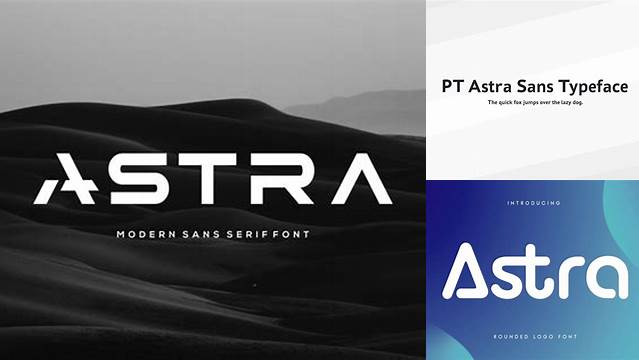
Astra Font: Download Modern Sans Serif For Free
The Allure of Astra Modern Sans Serif Fonts
Hey guys, let's dive into the awesome world of typography, specifically focusing on the Astra modern sans serif font. You know, those clean, geometric fonts that just scream modern and sophisticated? Well, Astra is definitely one of those. It’s a fantastic choice for designers, bloggers, and anyone looking to give their projects a sleek, professional edge. When you're on the hunt for a font that’s both stylish and highly legible, a modern sans serif like Astra really shines. It’s versatile enough to be used across a wide range of applications, from website headers and branding to print materials and even app interfaces. The simplicity of sans serif fonts means they often perform exceptionally well at various sizes, ensuring your message comes across loud and clear, whether it's on a tiny mobile screen or a large billboard. Astra, in particular, has this great balance of contemporary design and user-friendliness. It’s not overly stylized to the point of becoming difficult to read, which is a common pitfall for some trendier fonts. Instead, it offers a refined yet approachable aesthetic that can elevate almost any design. So, if you're looking for that perfect typeface to make your next project pop, understanding why modern sans serifs like Astra are so popular is the first step. They represent a departure from the more traditional serif fonts, offering a cleaner, often more minimalist vibe that resonates with contemporary design sensibilities. This font family is designed to be incredibly flexible, allowing for a multitude of uses without compromising its integrity or readability. We'll explore the various ways you can leverage its unique characteristics to enhance your own creative endeavors.
Why Choose Astra for Your Next Project?
So, why should you seriously consider the Astra modern sans serif font for your next big design gig? It really boils down to a few key things that make it a standout option. Firstly, its modern aesthetic is spot-on. In today's design landscape, clean lines and geometric forms are king, and Astra delivers this in spades. It gives your projects that fresh, up-to-date feel that’s crucial for grabbing attention. Secondly, readability is paramount, right? Nobody wants their audience squinting to read tiny text. Astra’s design prioritizes clarity, making it super easy to read across different platforms and devices, whether it's a website body text or a snappy social media graphic. This legibility factor is HUGE for user experience. Thirdly, the versatility of this font is insane. Need a bold headline? Astra’s got it. Need subtle body text? Astra can do that too. It often comes in a range of weights, from light to bold, giving you the flexibility to create visual hierarchy and add dynamic contrast to your designs. Imagine crafting a website where the headlines are in a strong, bold Astra, and the supporting text is in a lighter weight – it creates a beautiful flow and guides the reader's eye effortlessly. Beyond digital, it translates brilliantly to print, looking sharp on business cards, flyers, and posters. This adaptability means you’re not juggling multiple font families for different needs; Astra can often be your go-to solution. Plus, let's not forget the practical side: free download. Getting access to a high-quality, versatile font like Astra without any cost is a massive win for your budget and your workflow. It democratizes good design, allowing everyone from students to small businesses to access professional-grade typography. This accessibility is a game-changer, enabling more people to create polished and impactful visual communications. So, when you weigh up its modern style, excellent readability, incredible versatility, and the fact that you can download it for free, Astra truly emerges as a smart and practical choice for a wide array of design needs, guys.
Exploring the Typography of Astra: A Deep Dive
Let's get a bit nerdy and really dissect what makes the Astra modern sans serif font tick. When we talk about sans serif, we mean fonts without those little decorative feet, or serifs, at the ends of the strokes. This gives them a cleaner, more contemporary look. Astra exemplifies this perfectly. Its letterforms are typically geometric, often based on simple shapes like circles and squares, which contributes to its balanced and harmonious appearance. Look closely at the stroke contrast, or the variation between thick and thin lines within a letter. In many modern sans serifs, this contrast is minimal or non-existent, leading to a uniform stroke width that enhances legibility, especially at smaller sizes. Astra often follows this principle, maintaining a consistent weight throughout its characters for maximum clarity. The x-height – the height of lowercase letters like 'x' – is another critical factor. Astra generally features a generous x-height, which is great news for readability because it means the lower-case letters are proportionally larger and easier to distinguish. This is a common characteristic of highly functional sans serifs. Consider the apertures, the openings in letters like 'c', 'e', and 's'. Open apertures prevent letters from looking too closed off and indistinct, especially at low resolutions or small sizes. Astra tends to have well-defined, open apertures, further boosting its legibility. The kerning and tracking – the spacing between letters – are also meticulously handled in well-designed fonts like Astra. Proper kerning ensures that specific letter pairs don’t look awkward (like a 'VA' with too much space), and tracking affects the overall density of text. While these are technical aspects, their impact is felt in the overall visual appeal and ease of reading. The designers of Astra have clearly put thought into these details, resulting in a typeface that feels both intentional and polished. This attention to detail is what separates a good font from a great one, ensuring that it performs exceptionally well in various contexts. The clean, open shapes and consistent stroke weights make it a joy to work with, providing a solid foundation for any design that demands clarity and a modern touch. Guys, understanding these subtle typographic elements helps you appreciate why Astra is such a solid choice. It’s not just about looking good; it’s about functional, well-crafted design.
Designing with Astra: Best Practices for Impact
Now that you’ve got your hands on the Astra modern sans serif font, let's talk about how to use it like a total pro, guys. Maximizing its impact in your designs is all about smart application. First off, hierarchy is key. Use different weights of Astra – like a bold for headlines, a regular for subheadings, and a light or regular for body text – to guide the reader's eye. This creates a clear visual path and makes your content much easier to digest. Don't just slap text everywhere; think about how the different weights and sizes create emphasis and structure. Secondly, consider the context. Is Astra the right fit for a vintage-themed poster? Probably not. But for a tech startup's website, a modern minimalist brochure, or a clean app interface? Absolutely! Its modern vibe works best when paired with other contemporary design elements. Think clean layouts, ample white space, and perhaps a complementary accent color. This font excels in environments that value clarity and a sleek aesthetic. Thirdly, pairing Astra with other fonts can add depth. While Astra is versatile, sometimes you might want to introduce contrast. A common approach is to pair a sans serif like Astra with a serif font for body text to create a classic juxtaposition, or pair it with a more decorative display font for specific elements. However, ensure the pairing complements, rather than competes with, Astra's clean lines. A good rule of thumb is to keep the overall feel cohesive. Fourth, don't overdo it. Sometimes, the most powerful design uses Astra sparingly but effectively. A strong headline in a large, bold weight can be incredibly impactful on its own. Avoid using too many different weights or sizes within a single design, as it can lead to a cluttered and unprofessional look. Let the font breathe and speak for itself. Finally, experiment with spacing. Adjusting the tracking (overall letter spacing) and leading (line spacing) can significantly alter the feel of your text. Slightly tighter tracking can sometimes give a more condensed, modern feel, while generous line spacing enhances readability for longer passages. The Astra modern sans serif font is a tool, and like any good tool, understanding its strengths and using it thoughtfully will yield the best results. Use it boldly for headers, subtly for body copy, and always with a clear design intention in mind. Your designs will thank you, and so will your audience!
Astra vs. Other Modern Sans Serifs: What Makes It Stand Out?
Okay, so the world is flooded with modern sans serif fonts, right? It feels like every other week a new one pops up. So, what's the deal with Astra? How does it hold its own against giants like Open Sans, Lato, or even something super geometric like Montserrat? Well, guys, it often comes down to subtle nuances and perhaps the specific design goals of the creator. Astra tends to strike a really nice balance. While something like Montserrat might lean heavily into its geometric roots, sometimes appearing a bit too rigid or stylized, Astra often offers a slightly more humanist touch. This means the curves might feel a little softer, the proportions a bit more organic, making it feel a touch more approachable and less like a purely mathematical construct. This subtle warmth can be a huge advantage, especially for branding or web design where you want to connect with your audience on a more personal level. Compared to workhorses like Open Sans or Lato, which are fantastic and incredibly versatile, Astra might offer a slightly more distinct personality. They are designed for maximum neutrality and readability, which is great, but sometimes you want a font that has a little more character without sacrificing legibility. Astra can fill that niche – it's modern and clean, but with a quiet confidence that sets it apart. Think of it like this: Open Sans is the reliable, can-do-anything friend. Lato is the friendly, approachable colleague. Astra might be the stylish, yet grounded individual who always looks put-together. Its free availability is also a major differentiator. While many excellent fonts exist, not all are offered under licenses that permit widespread commercial use without a fee. Astra's accessibility means it competes not just on design merits but also on practicality for users on a budget. The clarity and legibility are consistently strong across the board with modern sans serifs, but Astra often achieves this with a particular elegance. It avoids being bland while remaining highly functional. It’s that sweet spot between being distinctively modern and universally readable that makes the Astra modern sans serif font a compelling choice. It doesn't shout; it confidently states its presence, making it a solid option when you need a typeface that’s both stylish and eminently usable. It’s a testament to thoughtful typographic design, offering a unique blend of form and function that appeals to a wide range of design needs. The subtle differences are often what make a designer choose one over the other for a specific project, and Astra’s particular blend of characteristics makes it a memorable contender.
The Future of Typography: Astra's Role in Modern Design
Looking ahead, the role of fonts like the Astra modern sans serif font in the ever-evolving landscape of design is pretty significant, guys. As digital interfaces continue to dominate, the demand for clean, legible, and adaptable typography is only going to increase. Astra, with its inherent modern qualities, is perfectly positioned to meet these demands. Think about the rise of responsive design – websites and apps need to look great on everything from a smartwatch to a large desktop monitor. Fonts with excellent readability across different screen resolutions and sizes, like Astra, are invaluable. Its sans serif nature means it scales beautifully, retaining its clarity without becoming pixelated or losing its professional sheen. Furthermore, the trend towards minimalism and flat design in UI/UX design strongly favors sans serif typefaces. Astra’s clean, geometric, or slightly humanist forms fit seamlessly into these aesthetic trends. It provides a solid, unobtrusive foundation upon which designers can build visually appealing and user-friendly interfaces. The future also involves greater integration of typography with motion graphics and interactive elements. A font like Astra, with its well-defined letterforms, often renders crisply in animations and transitions, making it a reliable choice for dynamic digital experiences. Its availability as a free download also plays a role in its future adoption. As more designers gain access to high-quality tools, fonts that are both functional and aesthetically pleasing, like Astra, are likely to become more ubiquitous. This widespread use, in turn, influences design trends, reinforcing the appeal of modern sans serifs. We're also seeing a push for greater accessibility in design. Typefaces that are highly legible and perform well for users with visual impairments are crucial. Astra’s clear letterforms and good spacing contribute positively to accessibility efforts. So, while trends may shift, the fundamental need for clear, versatile, and aesthetically pleasing typography remains constant. The Astra modern sans serif font, by embodying these qualities and being readily available, is set to remain a relevant and valuable asset in the designer's toolkit for the foreseeable future. It's not just a font; it's a building block for clear communication in the digital age, guys, and its influence is likely to grow as design continues its forward march.
Mastering Readability with Astra Sans Serif
Let’s get real for a sec, guys: awesome design means nothing if nobody can actually read it. This is where the Astra modern sans serif font truly shines, and mastering its readability is key to unlocking its full potential. Remember those typographic details we talked about earlier? The generous x-height, the open apertures, the balanced letterforms? These aren't just technical jargon; they are the secret sauce that makes Astra so easy on the eyes. When you're using Astra for body text – those paragraphs of content that make up the bulk of your website or document – you want to leverage these features. Ensure your line spacing (leading) is adequate. Too tight, and the lines of text blur together; too loose, and the reader loses their place. A good rule of thumb is to set your leading to about 1.2 to 1.5 times the font size. For Astra, this usually creates a comfortable reading rhythm. Similarly, pay attention to your line length. Extremely long lines can cause eye strain, while very short lines can make the text feel choppy. Aim for roughly 45-75 characters per line for optimal readability in most contexts. Astra's clean design means it handles these parameters beautifully. Its consistent stroke width prevents visual clutter, and the clear differentiation between characters (like 'i' and 'l', or 'O' and '0') avoids confusion. When setting headlines or shorter bursts of text, you can afford to be a bit more playful with weights and sizes, but for sustained reading, focus on creating a comfortable rhythm. Consider the background too. Astra generally performs well on both light and dark backgrounds, but ensuring sufficient contrast is non-negotiable. White text on a dark blue background, for instance, needs to have enough 'brightness' difference for it to be easily perceived. The Astra modern sans serif font is designed to be clear, but you still need to give it the best possible environment to do so. Don't be afraid to use its lighter weights for emphasis within a paragraph, perhaps italicized, or its bolder weights for subheadings that break up longer text blocks. The goal is to make the reading experience seamless and enjoyable. By understanding and applying these principles, you ensure that the aesthetic appeal of your design doesn't come at the cost of comprehension. Astra’s legibility is one of its greatest strengths, so treat it with the respect it deserves, and your readers will definitely appreciate it, guys. It’s all about making information accessible and pleasant to consume.
Astra Font Family: Exploring Weights and Styles
One of the most significant advantages of a well-developed font family, like the one that includes the Astra modern sans serif font, is the variety of weights and styles it offers. This isn't just about having options; it's about empowering you with the tools to create sophisticated and dynamic visual hierarchies within your designs. Think of Astra's different weights – perhaps ranging from Thin or Ultra Light, through Light, Regular, Medium, SemiBold, Bold, to Black or UltraBold. Each weight serves a distinct purpose. The lighter weights are fantastic for imparting a sense of elegance and airiness, often used for subtle captions, secondary information, or large blocks of text where a softer presence is desired. They can add a touch of refinement without overwhelming the viewer. The Regular and Medium weights are your workhorses – the bread and butter for body copy and general text where clarity and comfortable reading are the top priorities. They offer a balanced appearance that’s easy to scan and digest over longer periods. Then you have the bolder weights: SemiBold, Bold, and Black. These are your powerhouses, designed to grab attention. They are perfect for headlines, subheadings, calls to action, or any element that needs to stand out prominently. A strong Bold weight can anchor a design, providing a focal point that immediately draws the eye. Beyond just weight, some font families might also include italic or oblique styles. These are invaluable for adding emphasis within a paragraph – think of citing a source, highlighting a foreign word, or simply adding a touch of stylistic flair. Using italics judiciously can break up monotonous text blocks and draw attention to specific points without resorting to a heavier font weight, which might be too jarring. When you have access to a comprehensive Astra font family, you can create a cohesive yet varied typographic system. You might use Astra Black for your main title, Astra SemiBold for section headings, Astra Regular for body paragraphs, and perhaps Astra Light Italic for pull quotes or annotations. This consistent use of a single family, but varying its weights and styles, creates a unified brand voice that feels professional and well-considered. It’s this internal harmony within the font family that allows for maximum design flexibility using just one core typeface. So, when you download the Astra modern sans serif font, try to find a version that offers a good range of weights. It’s a small detail that makes a massive difference in your design capabilities, guys, allowing for nuanced expression and robust structure all at once.
Color and typography are like dance partners in design; they need to move together harmoniously to create a compelling visual experience. The Astra modern sans serif font, with its clean and versatile nature, offers a fantastic canvas for exploring color combinations. Because Astra is inherently clear and well-balanced, it tends to work well with a wide spectrum of colors. Its modern aesthetic often pairs beautifully with vibrant, bold hues for a contemporary feel, or with more muted, sophisticated tones for an elegant look. When using Astra in color, think about the context and the message you want to convey. For a lively brand or a call to action, you might set Astra in a bright, energetic color against a neutral background. Conversely, for more serious content or a minimalist design, using Astra in shades of gray, deep blues, or even black on a white or off-white background provides a sense of calm and professionalism. Remember the importance of contrast. Astra's legibility is enhanced by sufficient contrast between the text color and its background. This is crucial not only for aesthetic appeal but also for accessibility. A good rule of thumb is to ensure the contrast ratio meets accessibility guidelines (WCAG AA or AAA). Astra's clear letterforms make it easier to achieve good contrast compared to more complex or decorative fonts. You can also use color within the Astra font itself to add emphasis. For instance, you might use a standard weight of Astra in black for body text, but highlight a key phrase or word in a different brand color using a bold weight. This draws the reader's attention precisely where you want it. The free download availability of Astra means you have the flexibility to experiment with various color palettes without worrying about font licensing costs. This allows you to focus your creative energy on finding the perfect color harmony that complements Astra’s form and enhances your overall design. Whether you're designing a website, a brochure, or a brand identity, the Astra modern sans serif font provides a reliable typographic base that pairs exceptionally well with color, allowing you to create visually rich and engaging communications, guys. It’s a foundation that makes color choices pop.
Astra Font in Editorial Design: Polish and Professionalism